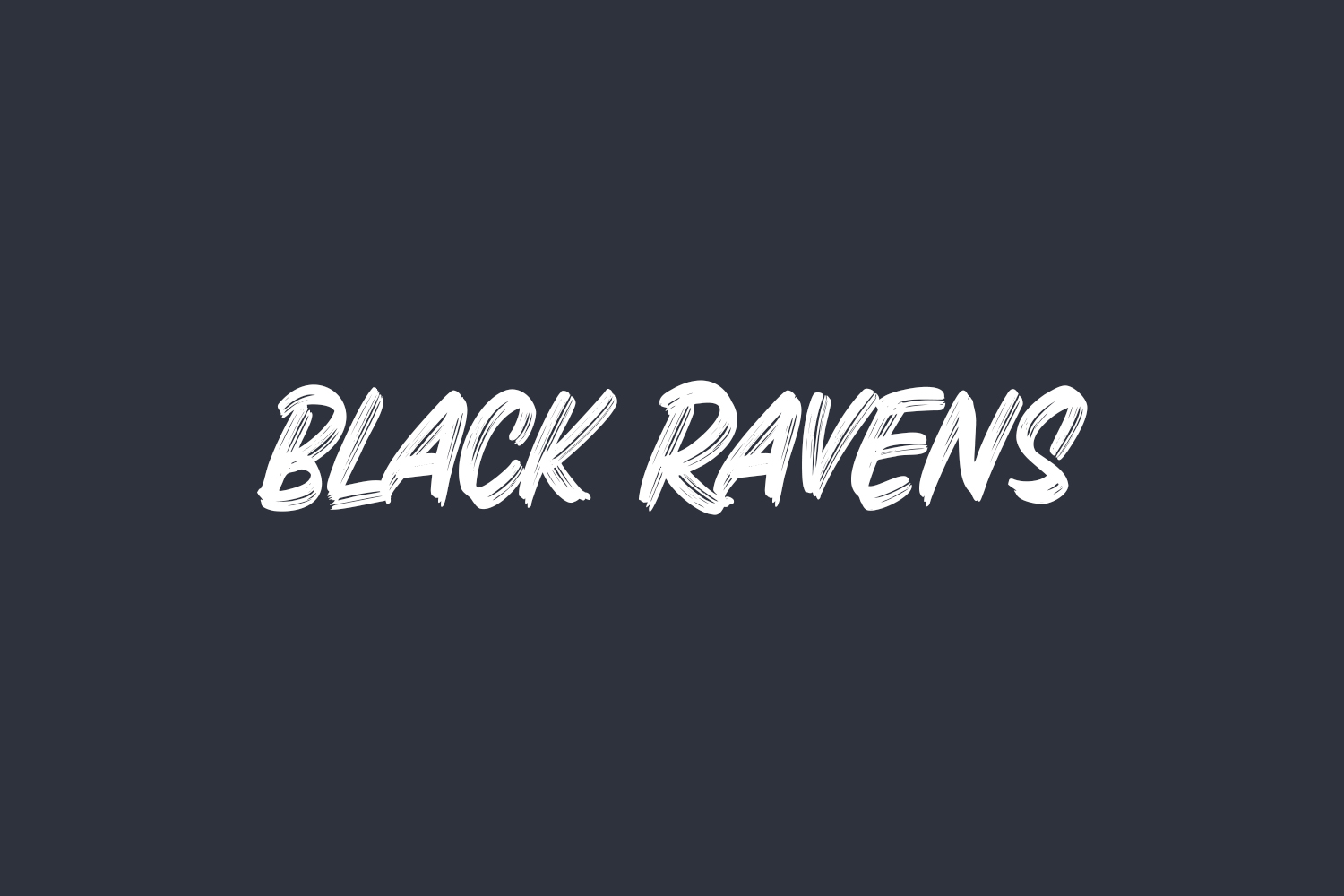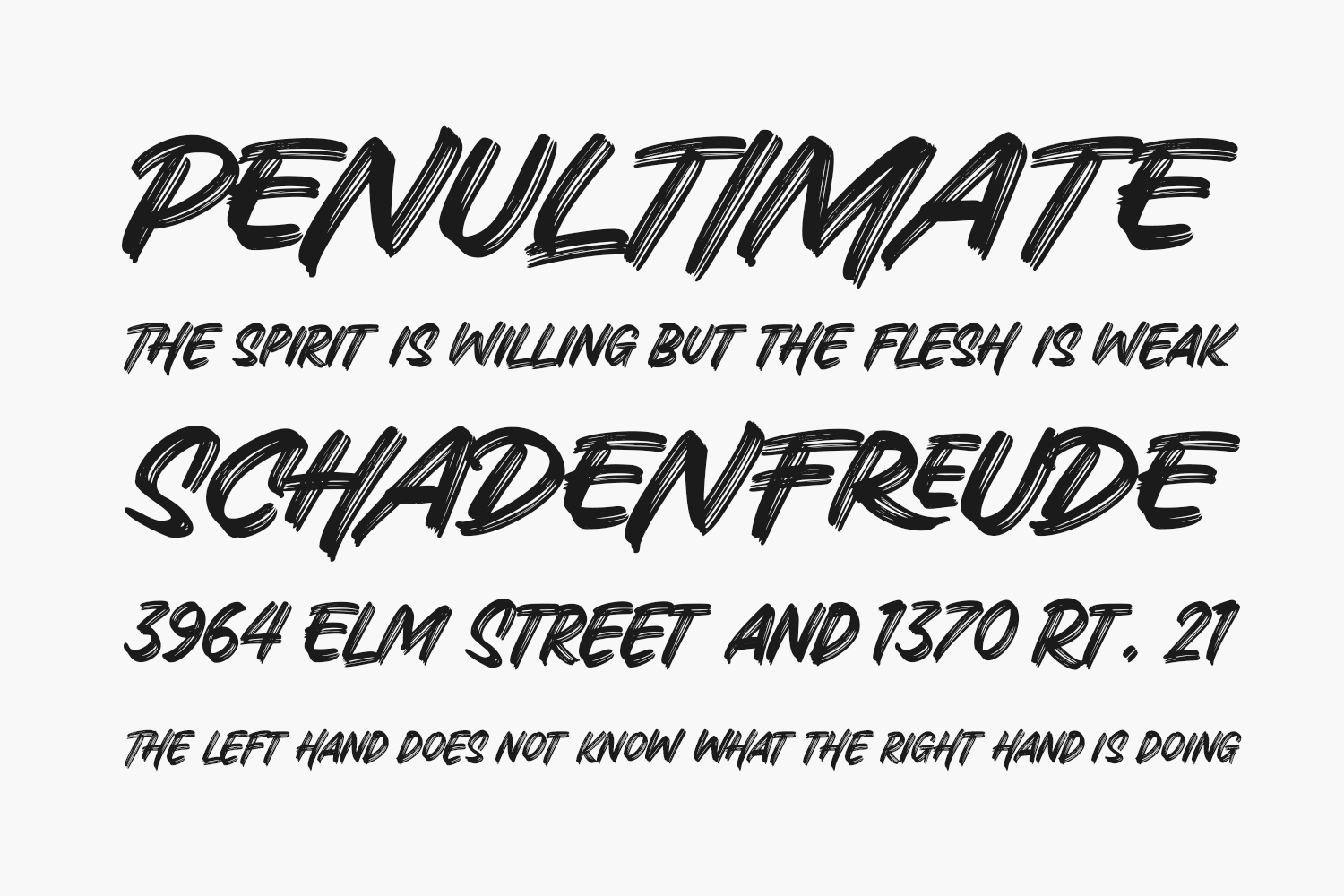
Black Ravens Free Font is a bold and chunky lettered display font. Add this font to your creative ideas and notice how it will make them stand out. Black Ravens Free Font was designed by Arterfak Project and is free for personal use only. Please purchase the full version for commercial use.